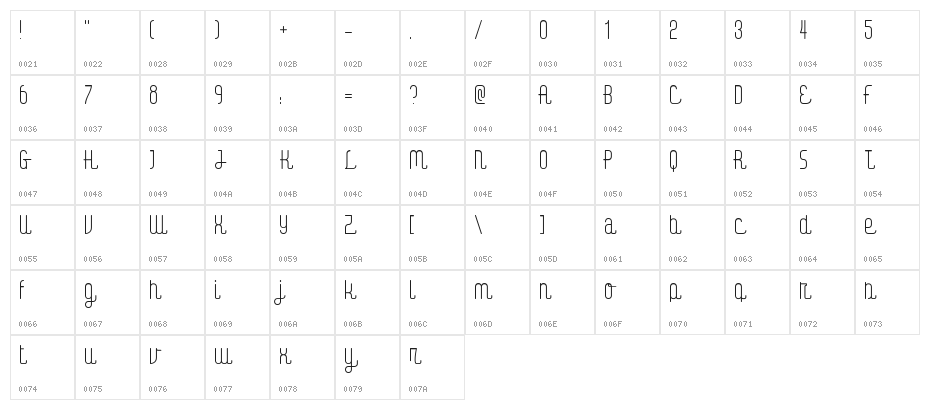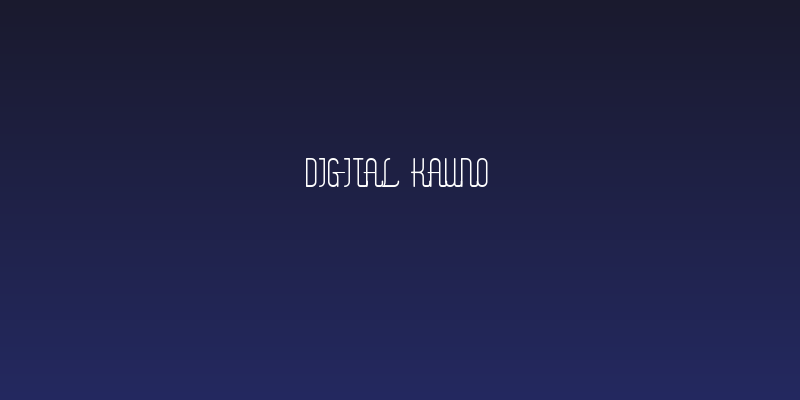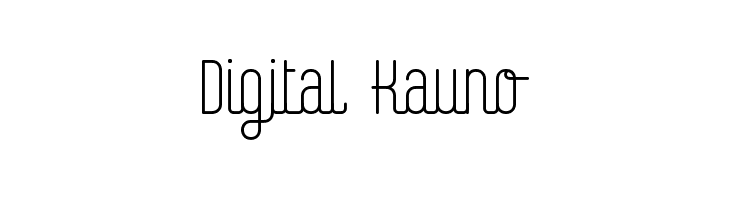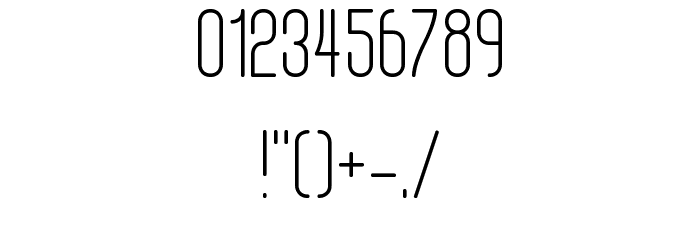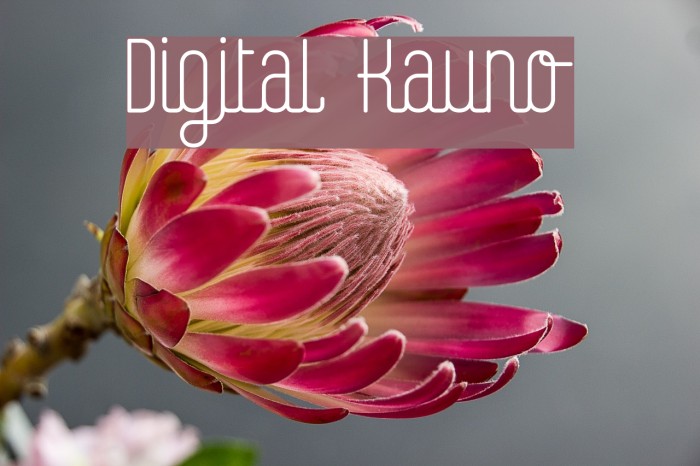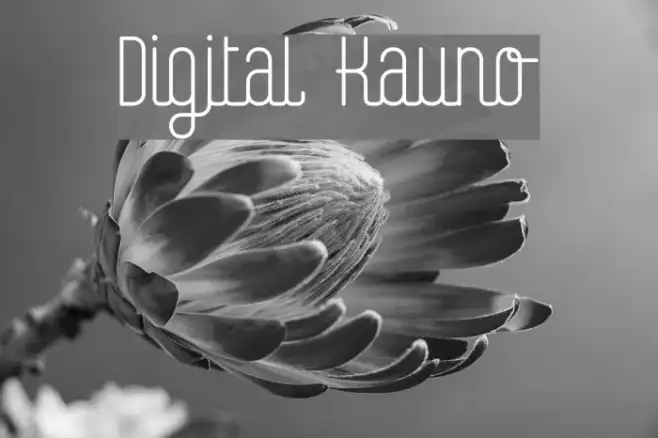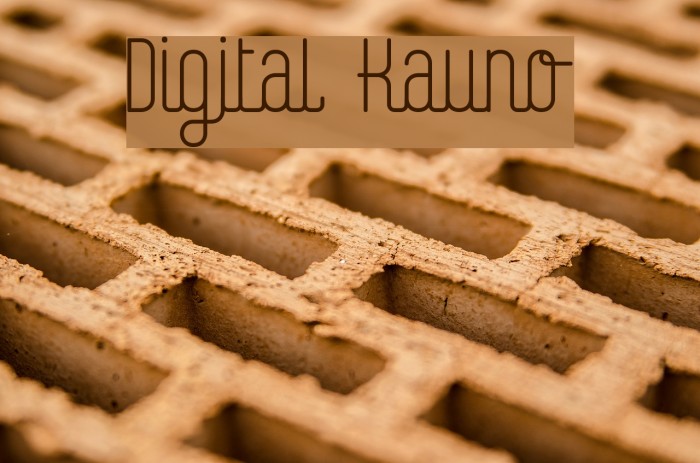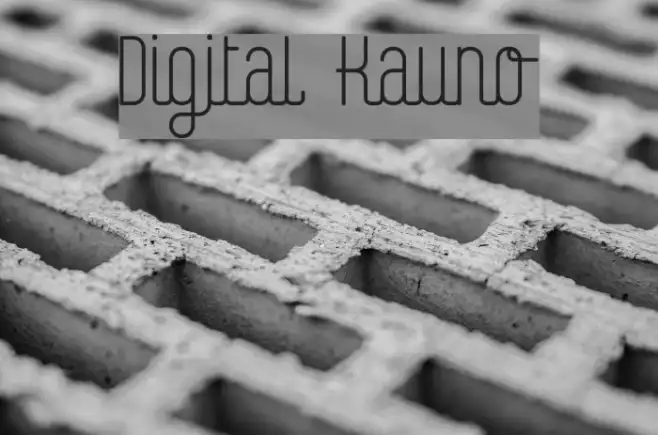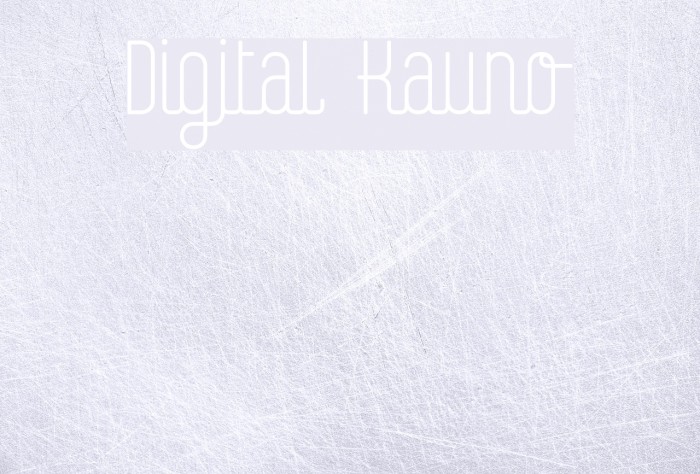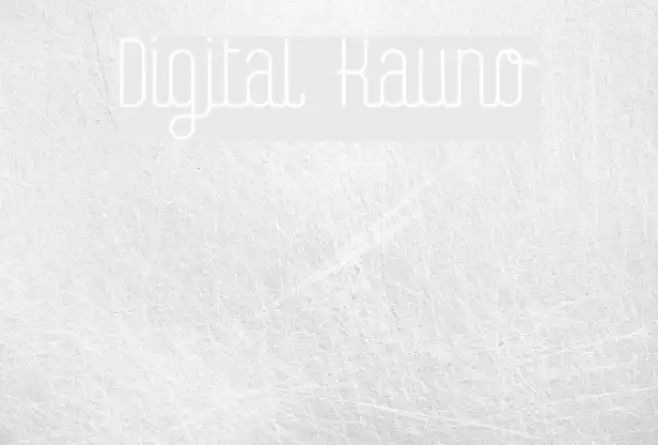
Digital Kauno Font
Digital Kauno Description
This font features a unique and modern design with a monolinear structure, characterized by its rounded corners and consistent stroke width. The uppercase and lowercase letters exhibit a playful yet structured appearance, with a slight retro influence. The numerals and special characters maintain the same stylistic approach, ensuring a cohesive look across all glyphs. The font's clean lines and geometric shapes make it versatile for various design applications, offering a contemporary aesthetic that is both eye-catching and functional.
| Proposed Projects | Ideal for branding, packaging, posters, and digital media where a modern and playful yet structured look is desired. |